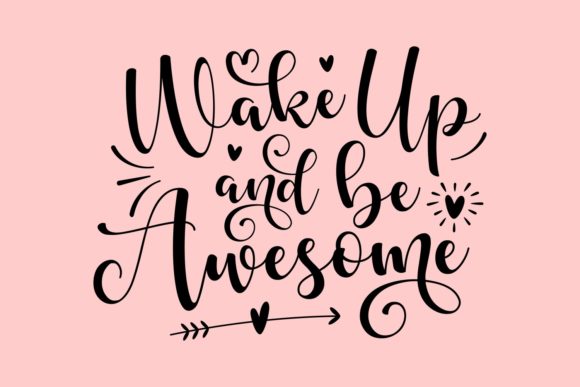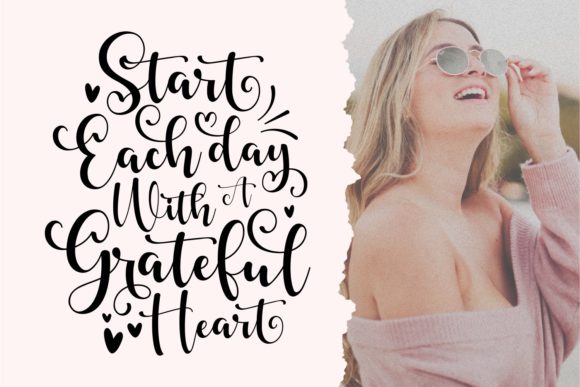
Ariska Font
db-ku.com - Script & Handwritten -- Ariska is a dazzling script font. This font is neatly crafted and highly detailed. It is also PUA encoded which means you can access all glyphs and swashes with ease!